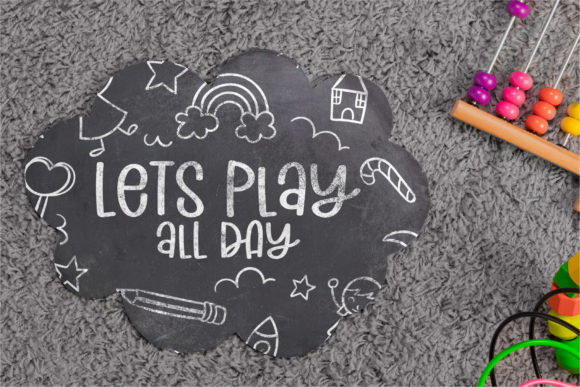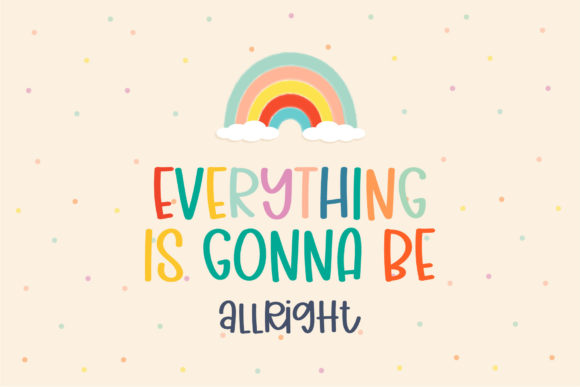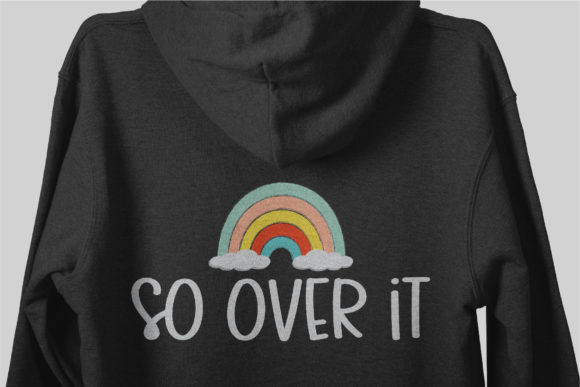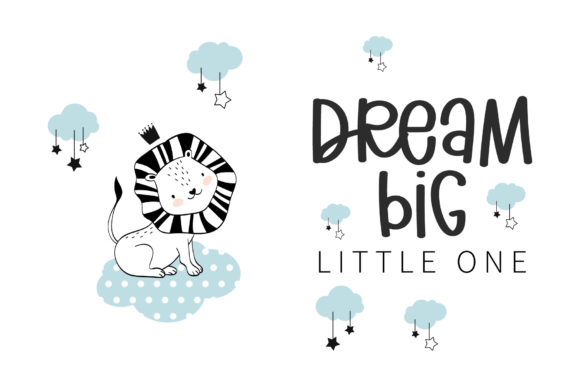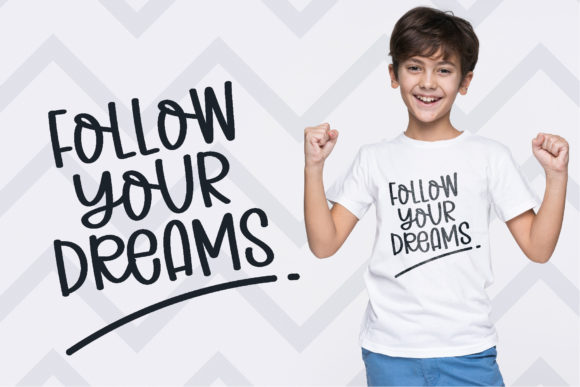
Rainbow Club Font
About Rainbow Club Font
Rainbow Club is a cute and relaxed handwritten font. This font is perfect for children themed designs, especially when combined with bright colors.